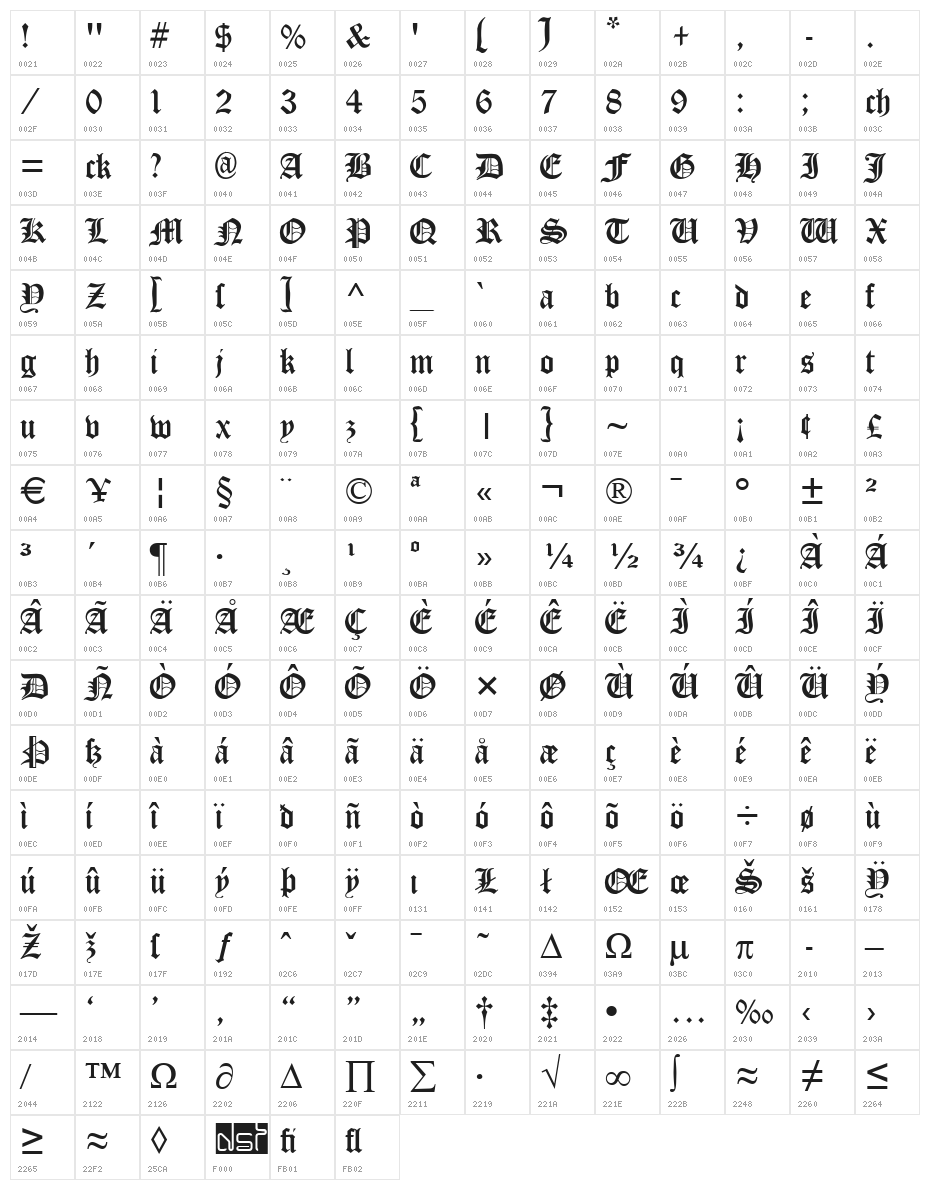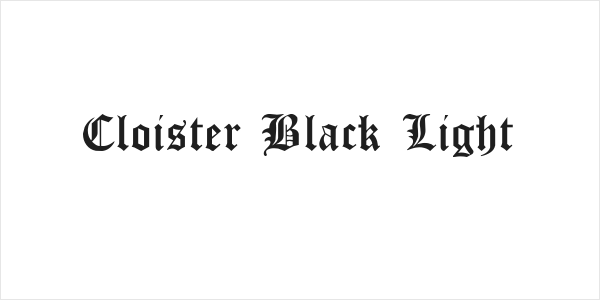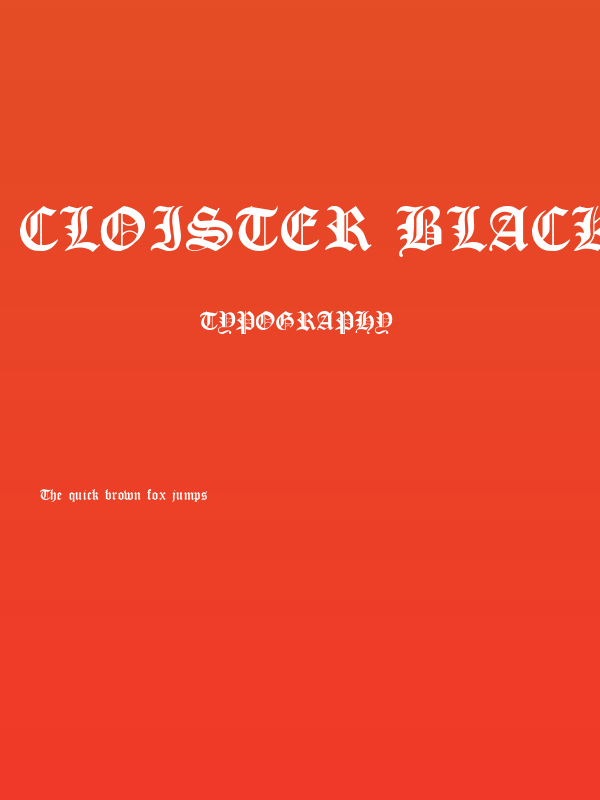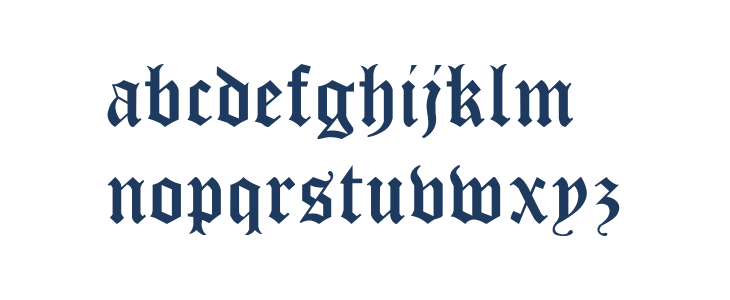
Cloister Black Light Font
Cloister Black Light Description
This font embodies the traditional and ornate characteristics of blackletter typefaces, featuring intricate and decorative strokes that are reminiscent of medieval script. The uppercase letters are bold and commanding, with sharp angles and elaborate serifs that give them a gothic appearance. The lowercase letters maintain the same level of detail, with unique curves and flourishes that add to the overall complexity of the design. The numerals are consistent with the style, offering a cohesive look across all characters. Special characters are equally ornate, ensuring that the font can be used for a variety of purposes while maintaining its distinctive aesthetic.
| Proposed Projects | Ideal for historical documents, wedding invitations, gothic-themed designs, and branding that requires a classic and sophisticated touch. |